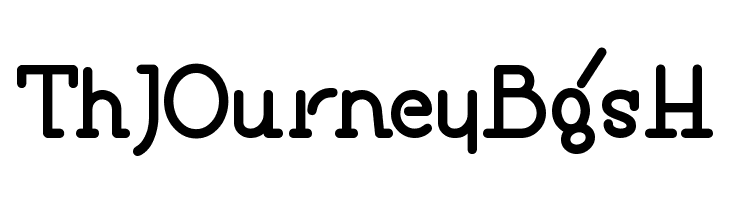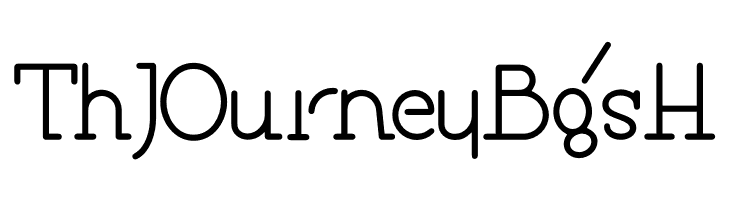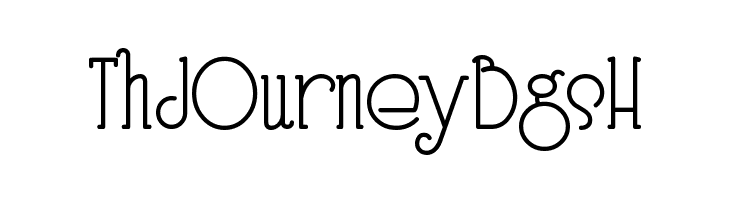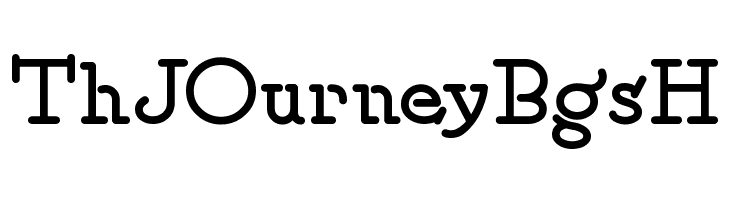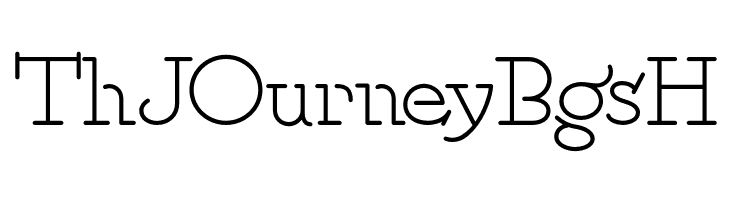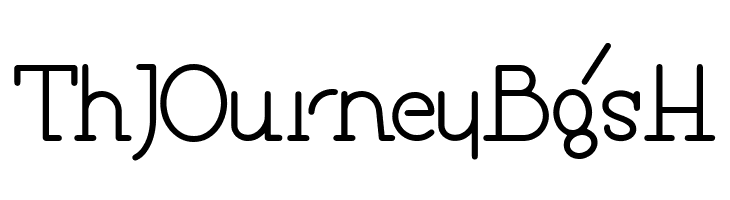
• Speedball No 2 NF Bold
A bold, playful font with vintage-inspired rounded and angular elements.
• Speedball No 3 NF
An artistic and decorative font with geometric and playful elements.
• Speedball No1 Bold NF
• Speedball No1 NF
A playful, geometric font with script-like elements and consistent stroke width.
• Speedball No1 NF Bold
A bold, rounded font with a playful and friendly style.
• SpeedballNo1NF
A playful, geometric font with rounded letterforms and a modern yet vintage appeal.
• SpeedballNo1NF-Bold
A bold, playful font with rounded edges and a consistent stroke width.
• SpeedballNo2NF
A geometric and decorative font with rounded serifs and consistent stroke width.
• SpeedballNo2NF-Bold
A bold, retro-inspired font with rounded characters and a playful serif touch.
• SpeedballNo3NF
A playful yet elegant font with art deco influences and thin, elongated strokes.